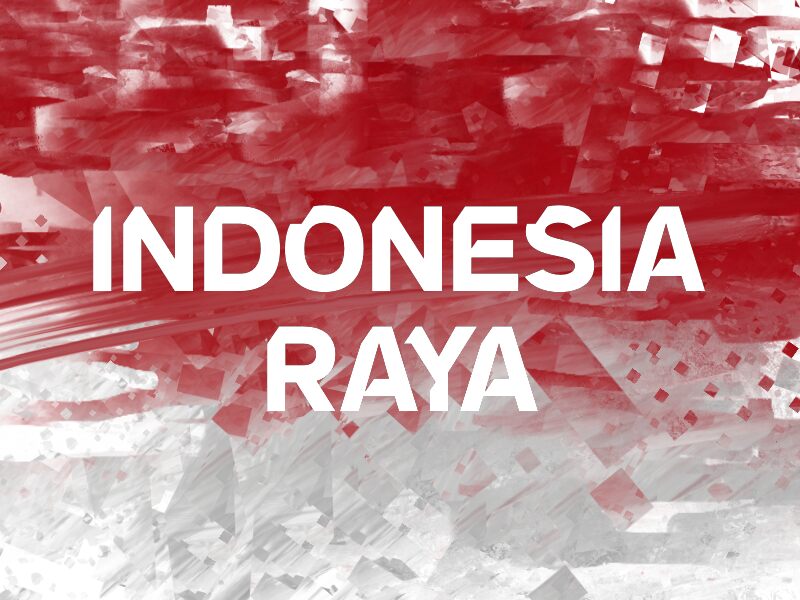
Indonesia Raya is a bold free font designed by wep. The font carries the name of an anthem for Indonesian independence and is inspired by the typeface in the poster used in the ceremony on 17th of August 1945.
All its characters carry a unique style with a rough edge that creates a modern design, but it’s also ideal if used for posters for history books and related exhibitions and it can also be employed for websites and flyers of projects that focus on independence movements and human rights.
The font can also serve as logo for social activism related organizations.
Indonesia Raya